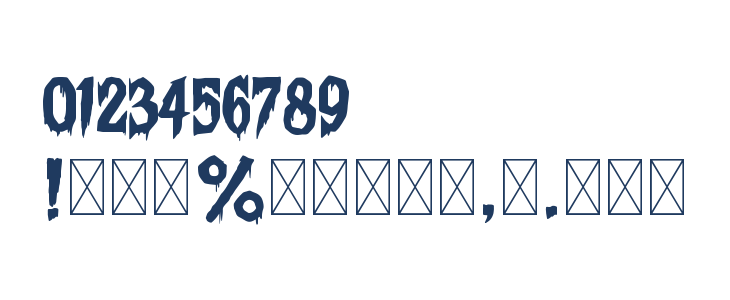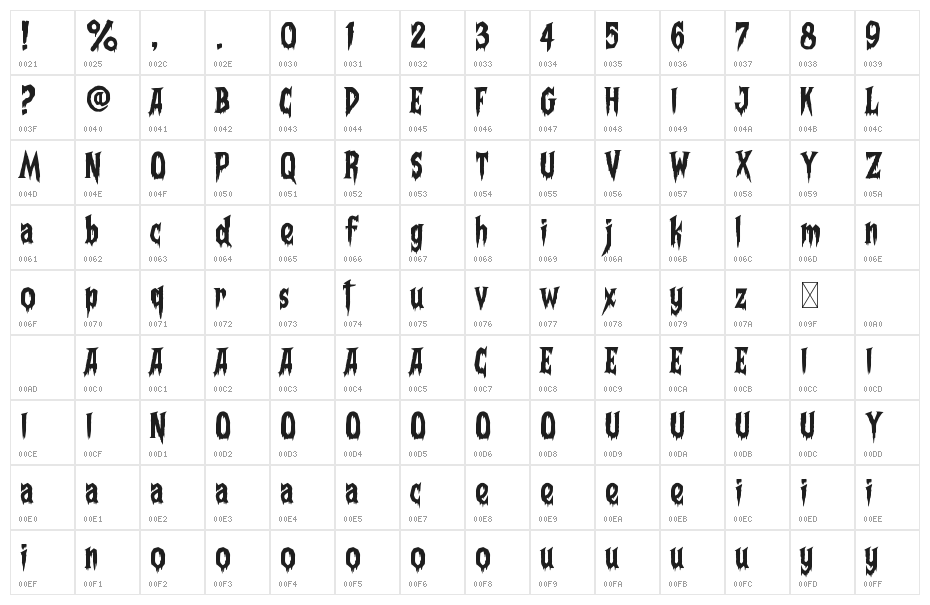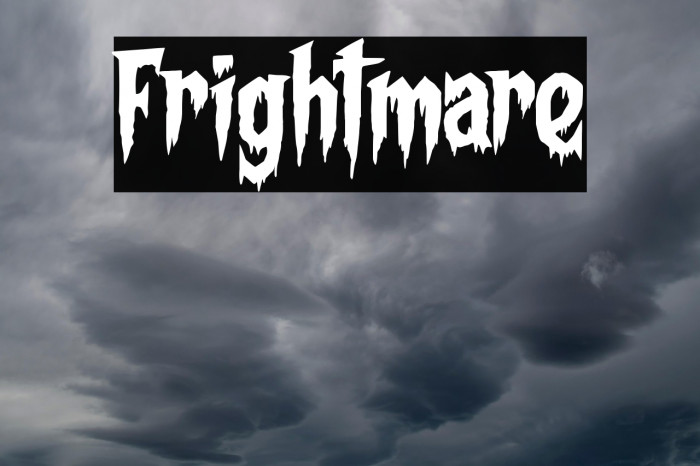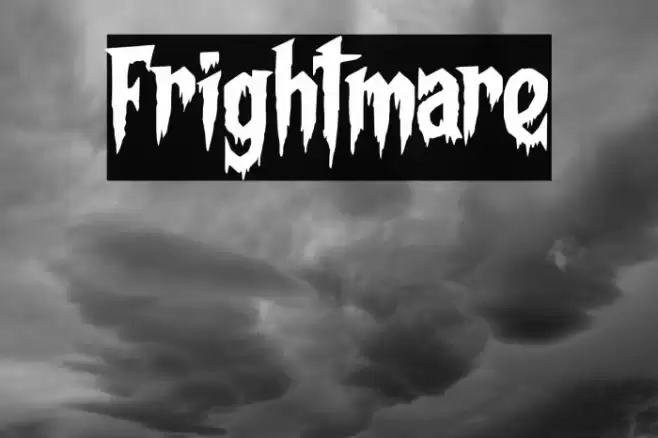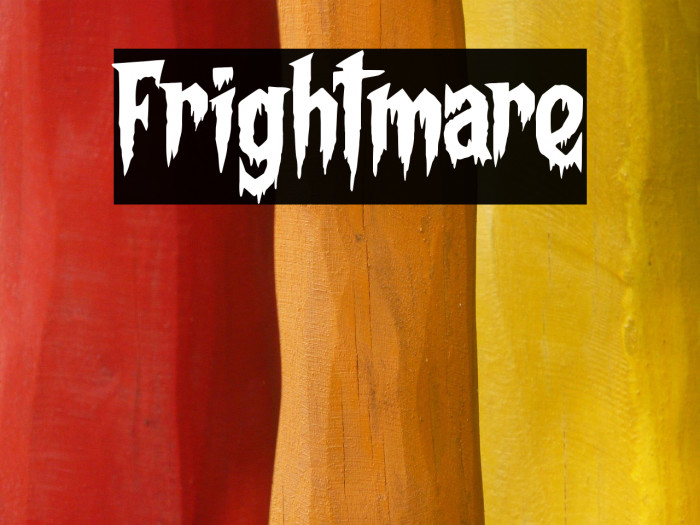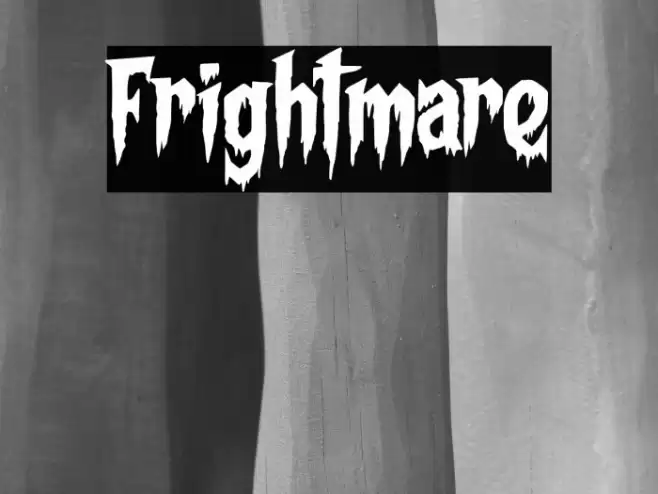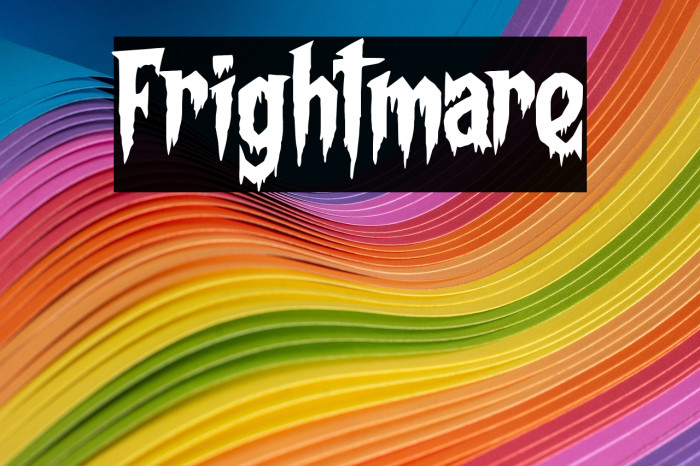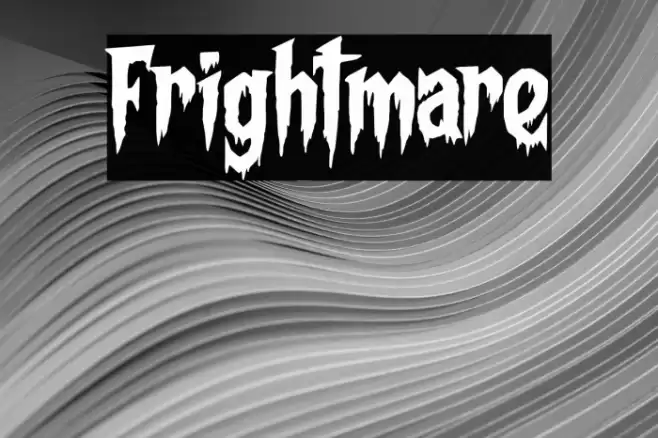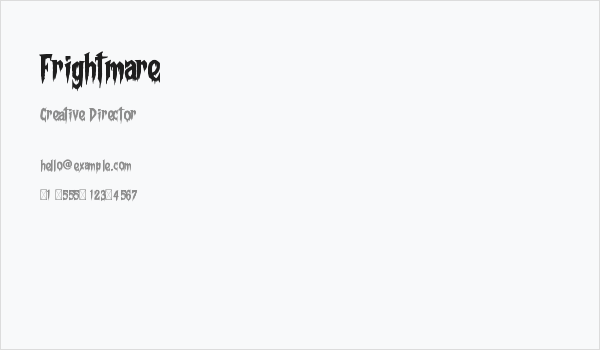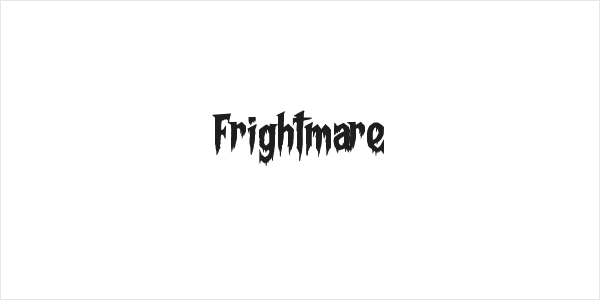
Frightmare Font
Frightmare Description
This font features a dramatic and eerie design, with jagged edges and irregular shapes that evoke a sense of horror and suspense. The characters appear as if they are dripping or melting, creating a chilling effect that is perfect for Halloween-themed projects or anything related to the horror genre. The uppercase and lowercase letters maintain a consistent style, with sharp angles and a bold presence. Numbers and special characters are equally stylized, ensuring a cohesive look across all text elements.
| Proposed Projects | Ideal for Halloween invitations, horror movie posters, haunted house flyers, and spooky-themed merchandise. |